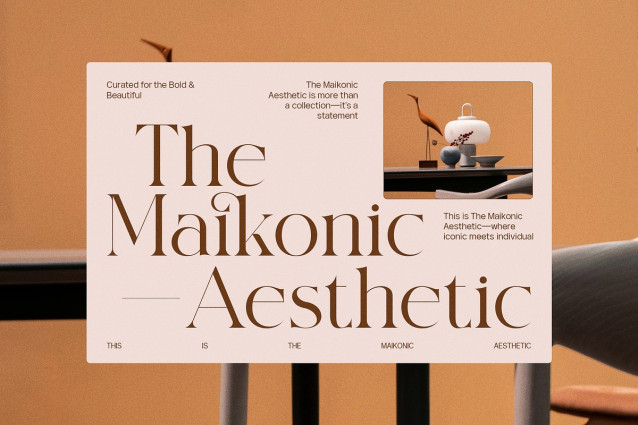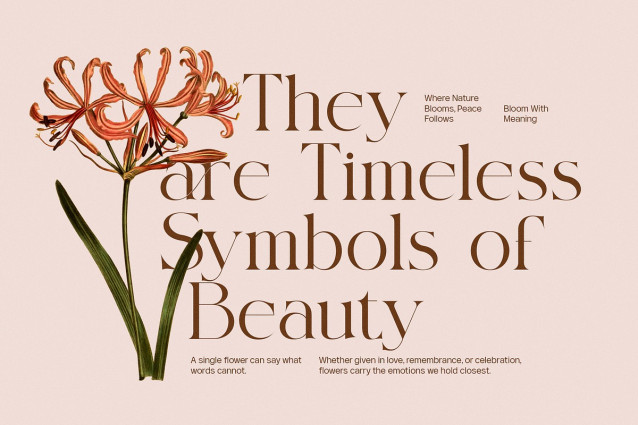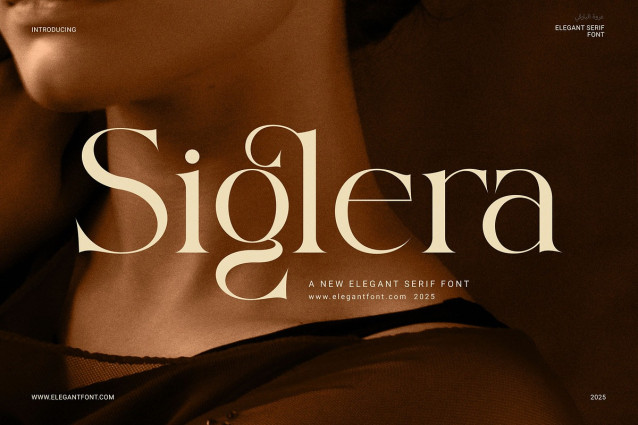
Siglera Font
Sigera Font is a luxury serif font that blends elegance, high contrast, and refined stylization to elevate any design. Whether you create branding, logos, wedding invitations, or high‑end editorial designs, this serif typeface delivers polished visual impact. It is bold yet graceful, dramatic yet readable, perfect for display headings as well as features in luxury packaging and editorial layouts.